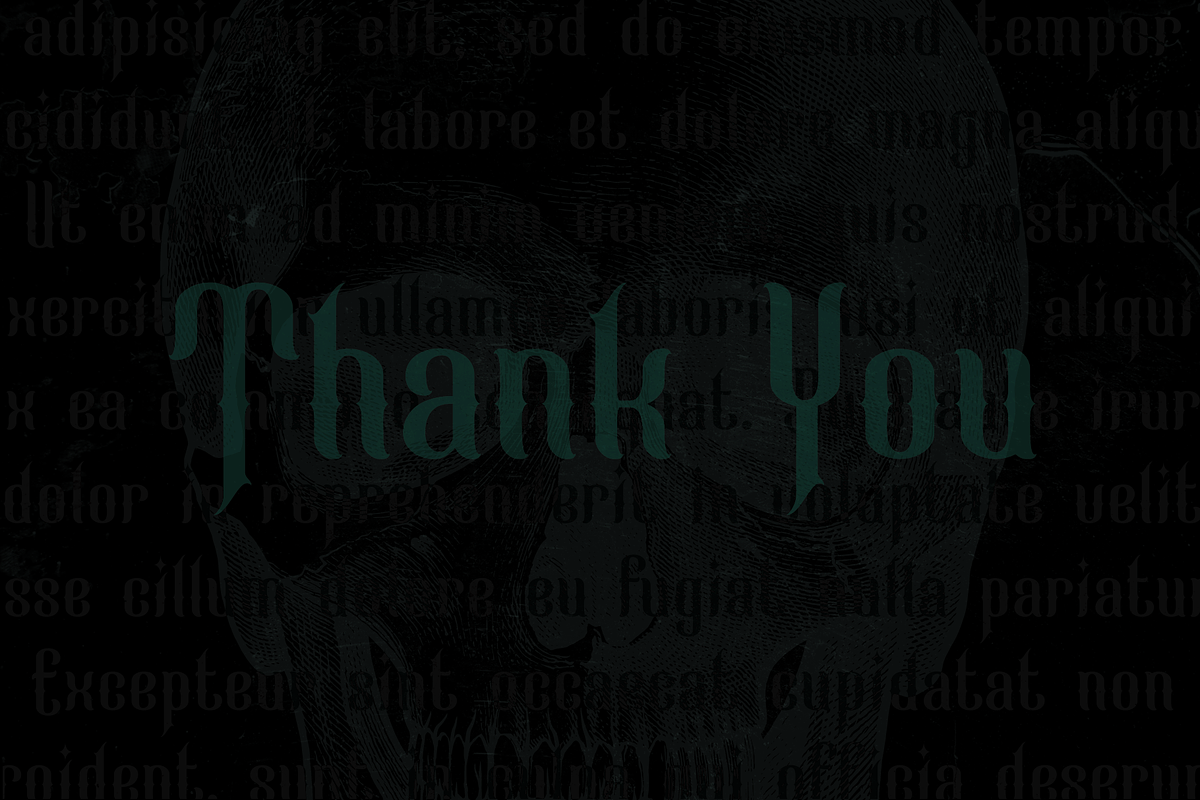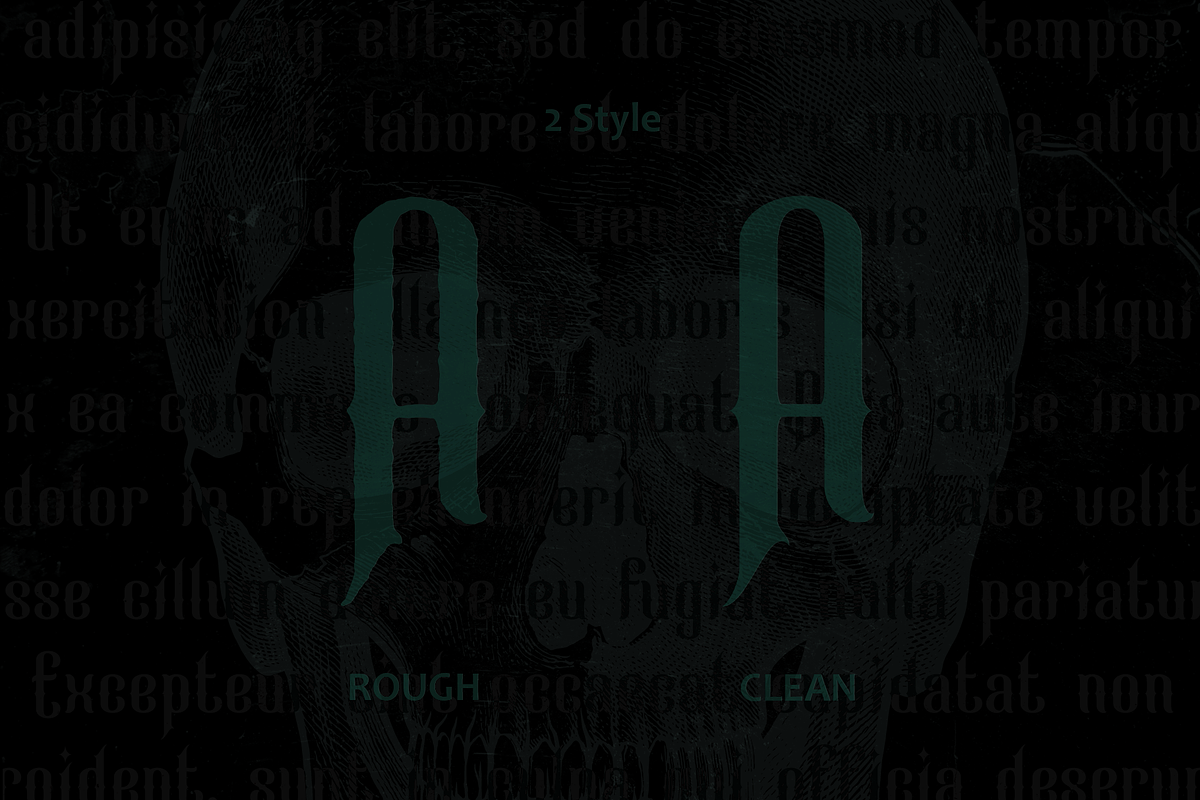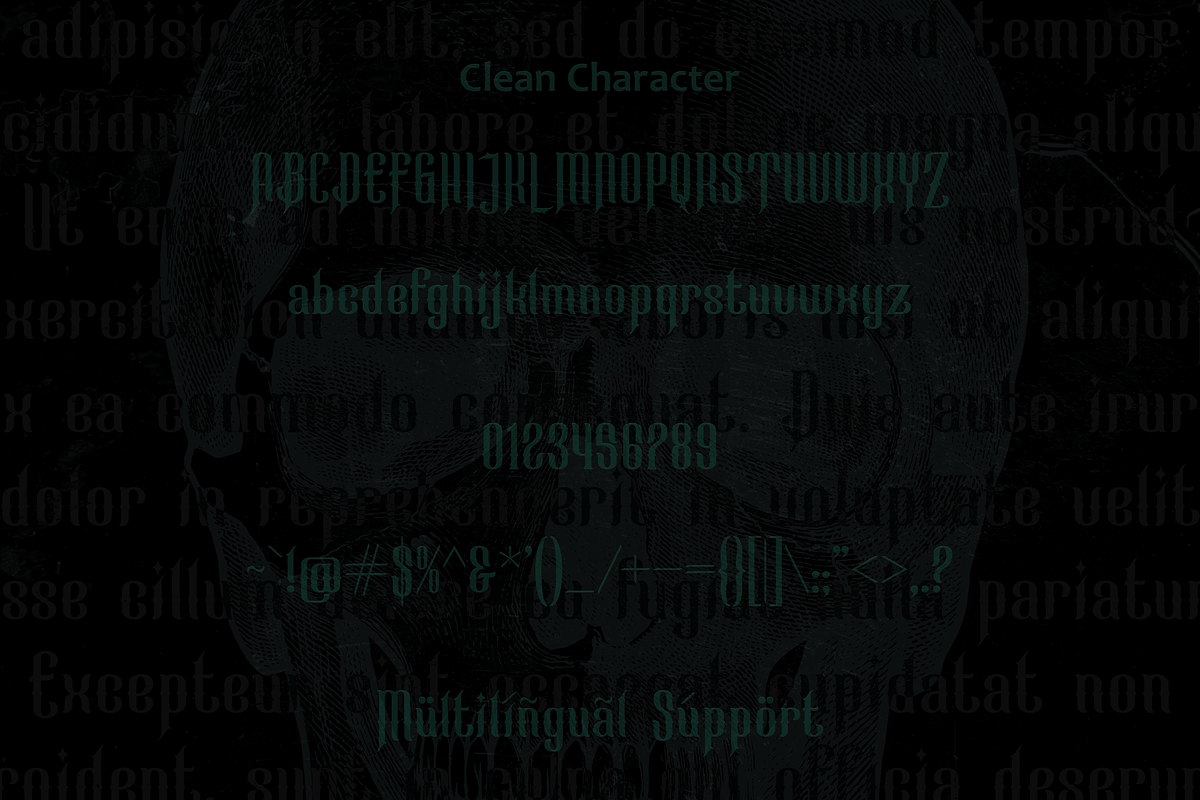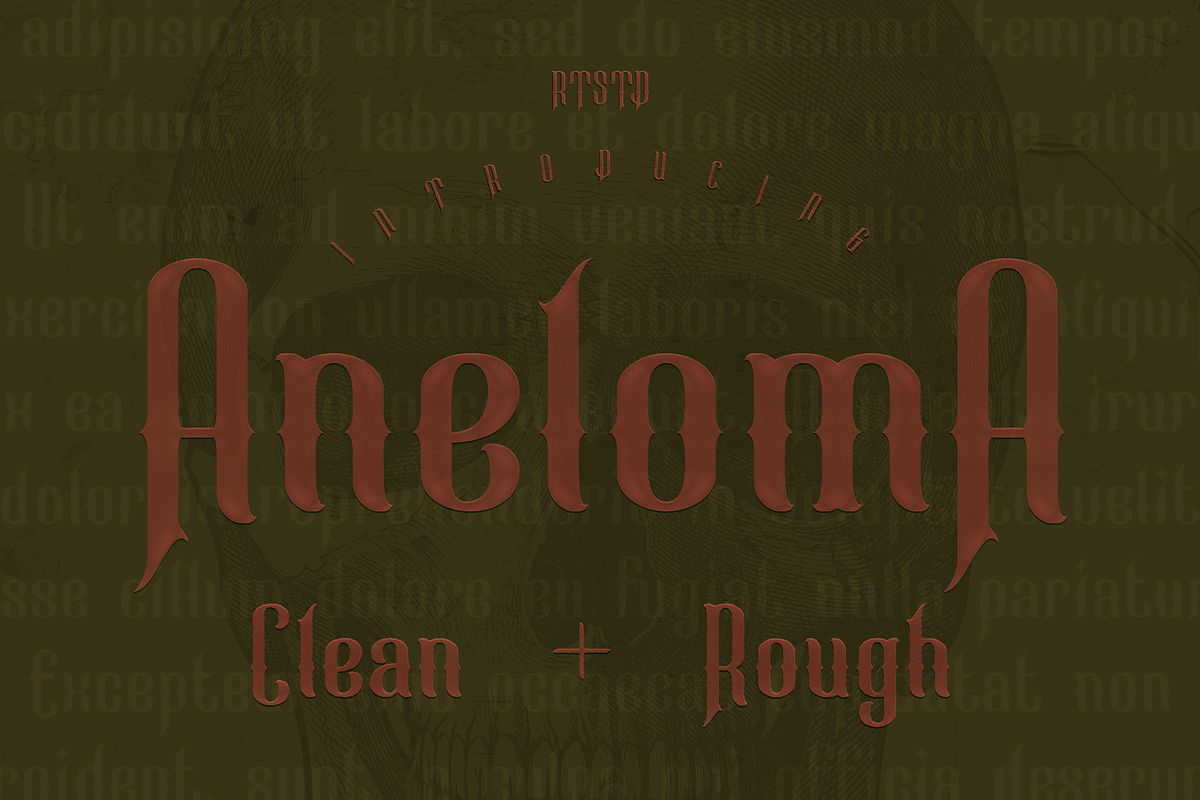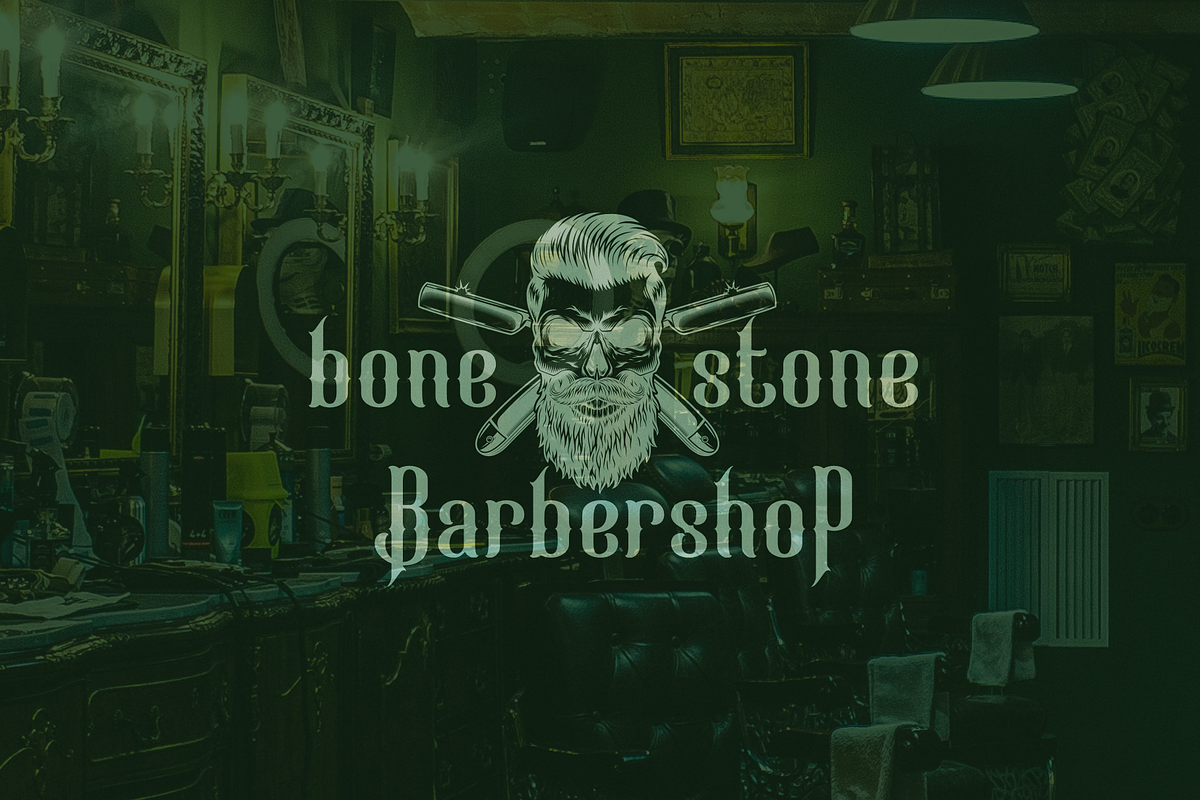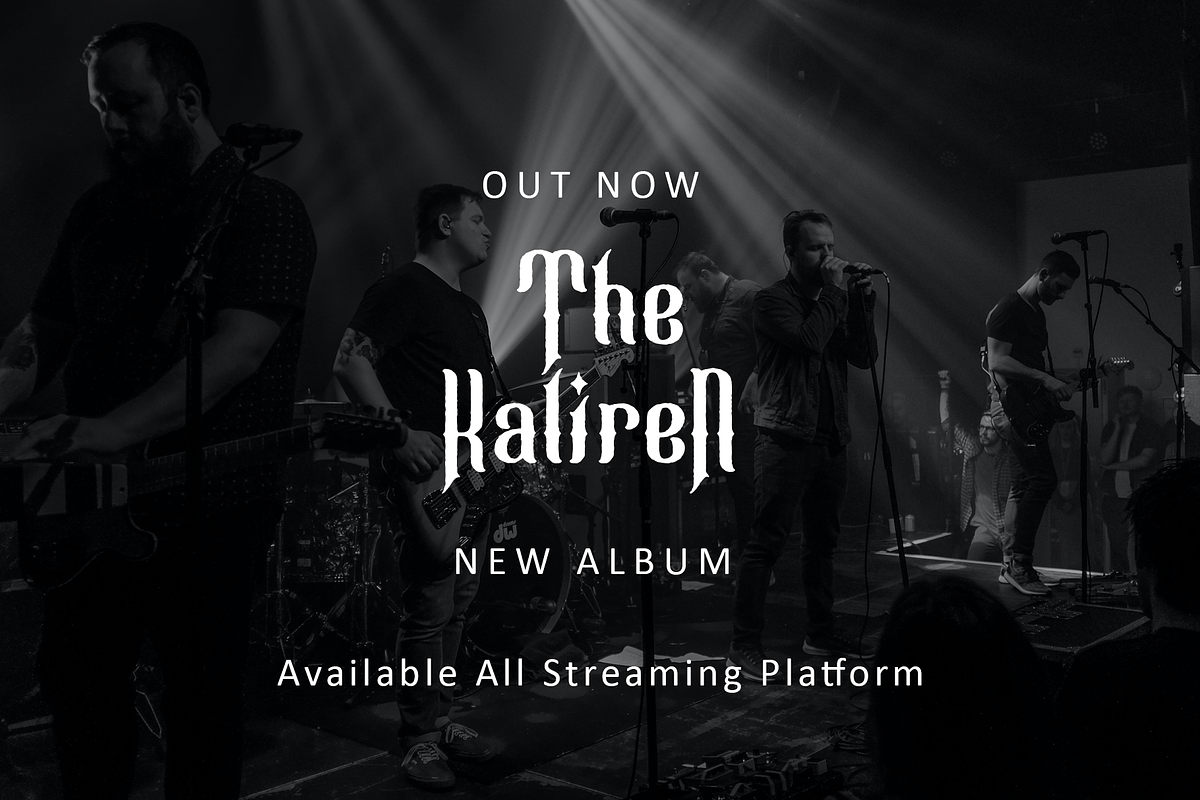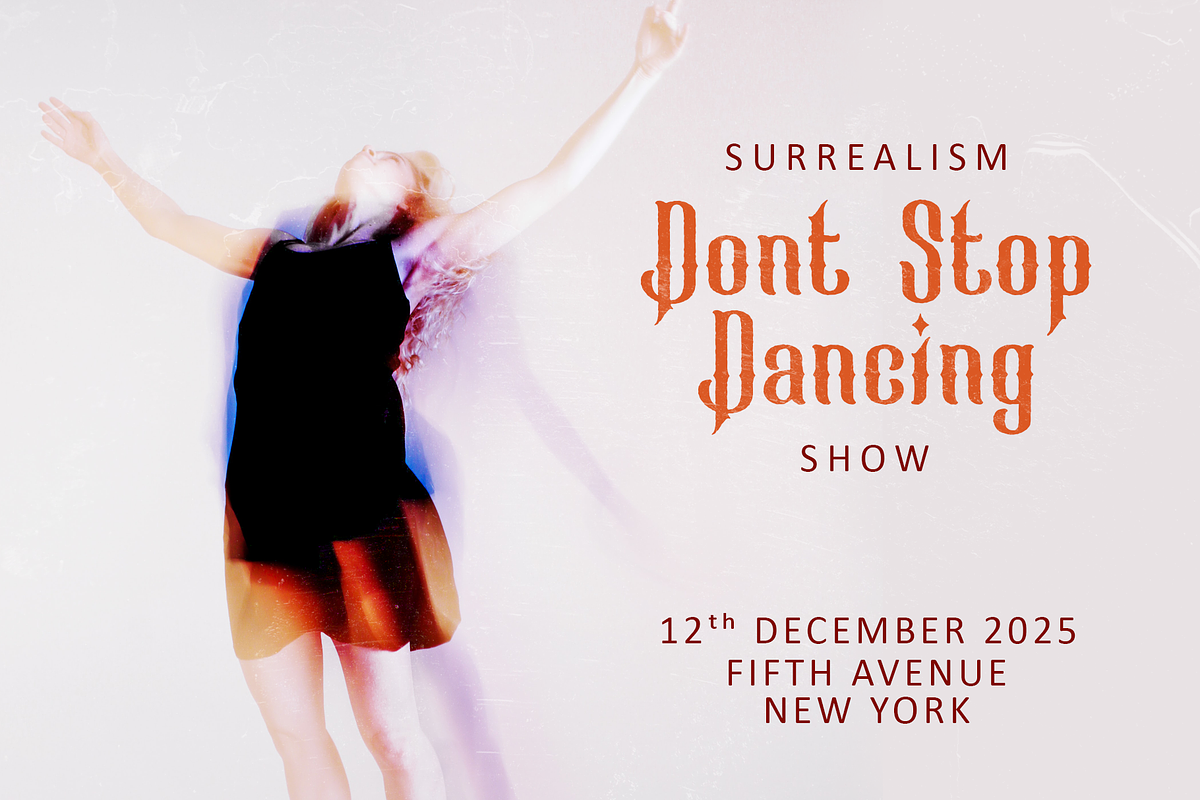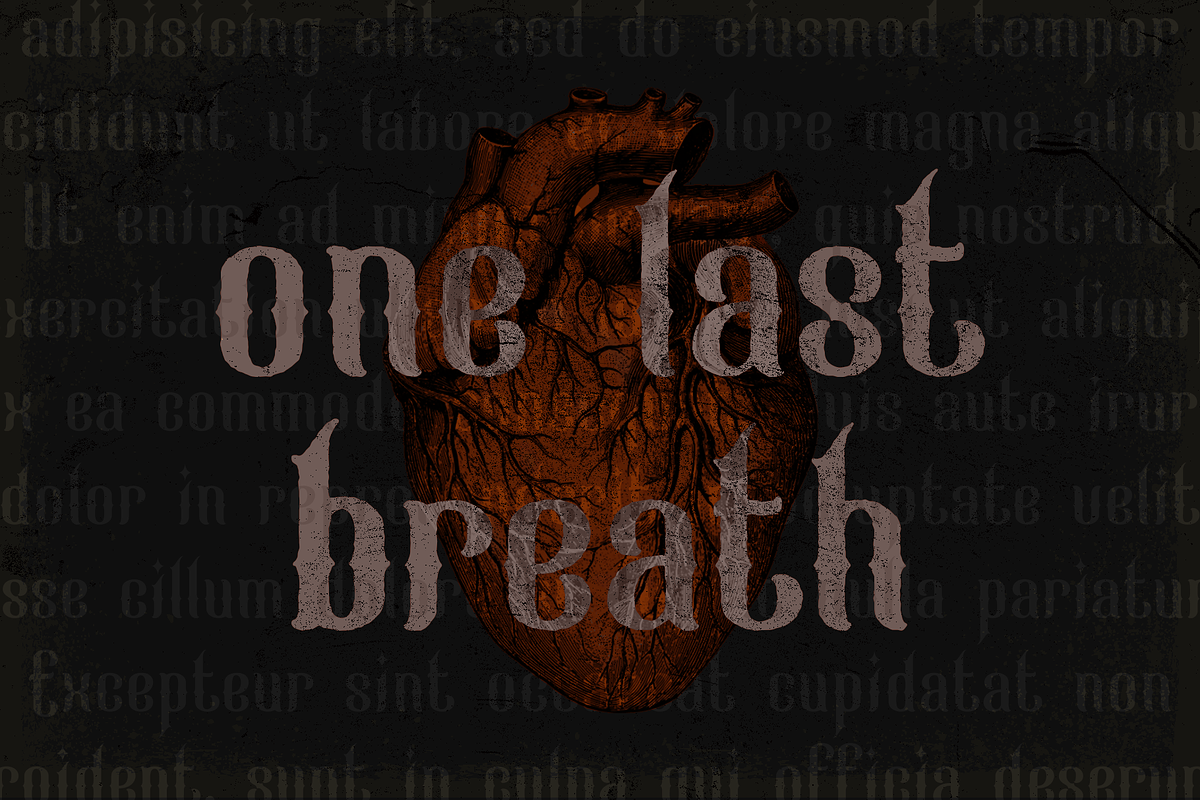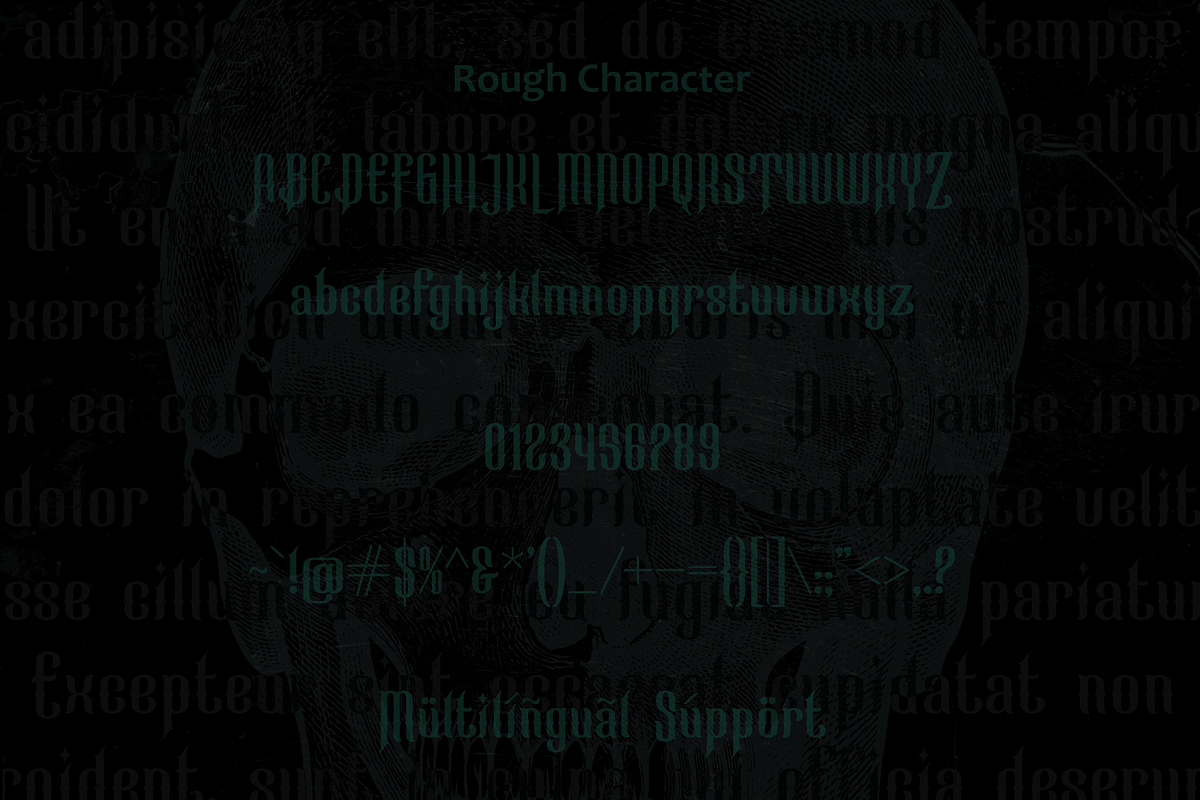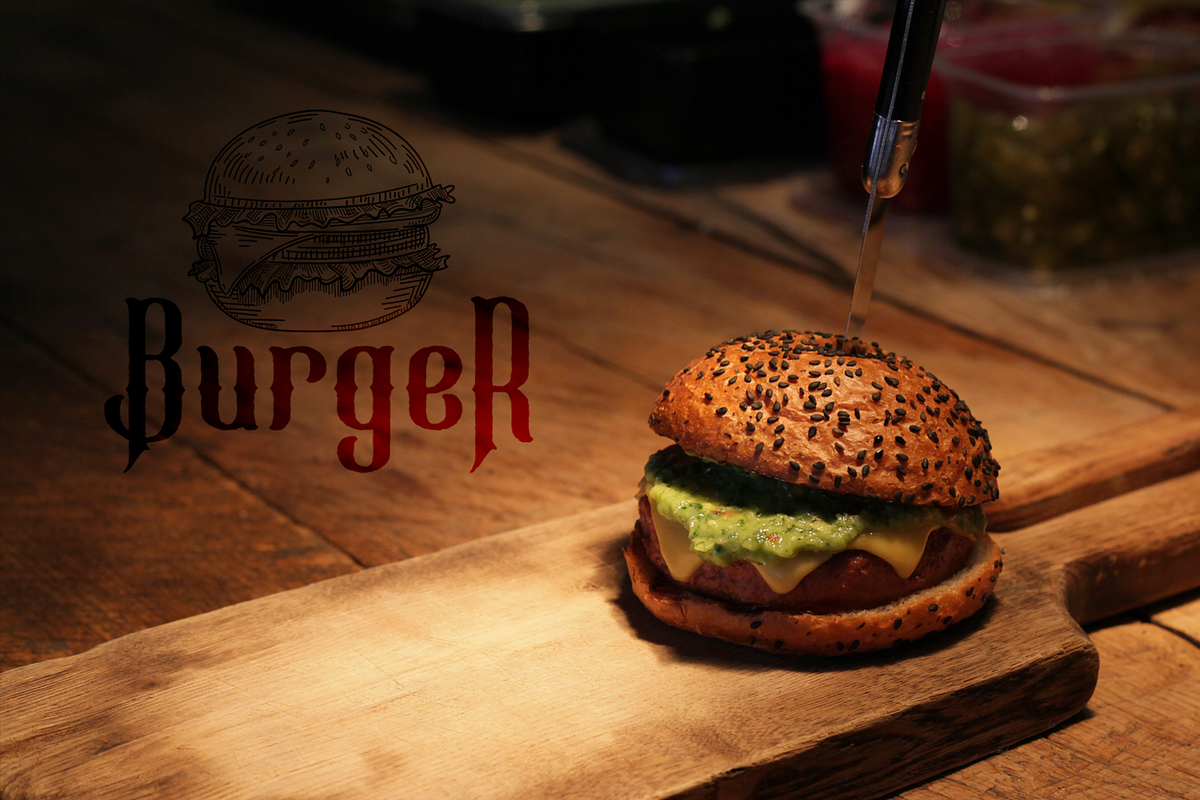
Aneloma
Aneloma is a neat 2 style blackletter font, perfect for use in a paragraph sentence. And headlines too. There are two styles that you can get here, clean and rough. A beautiful blackletter typeface. Aneloma is perfect for many projects, for branding, Instagram, print posters, magazines, Fashion, whatever.